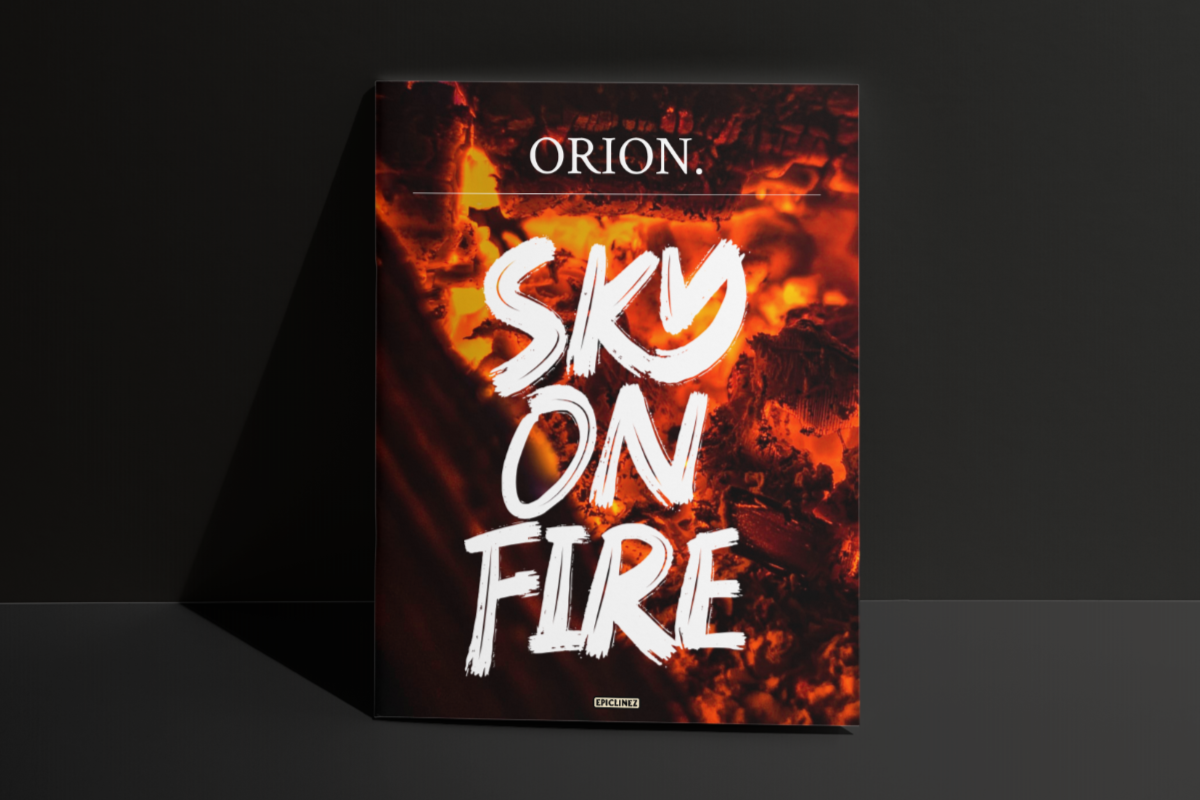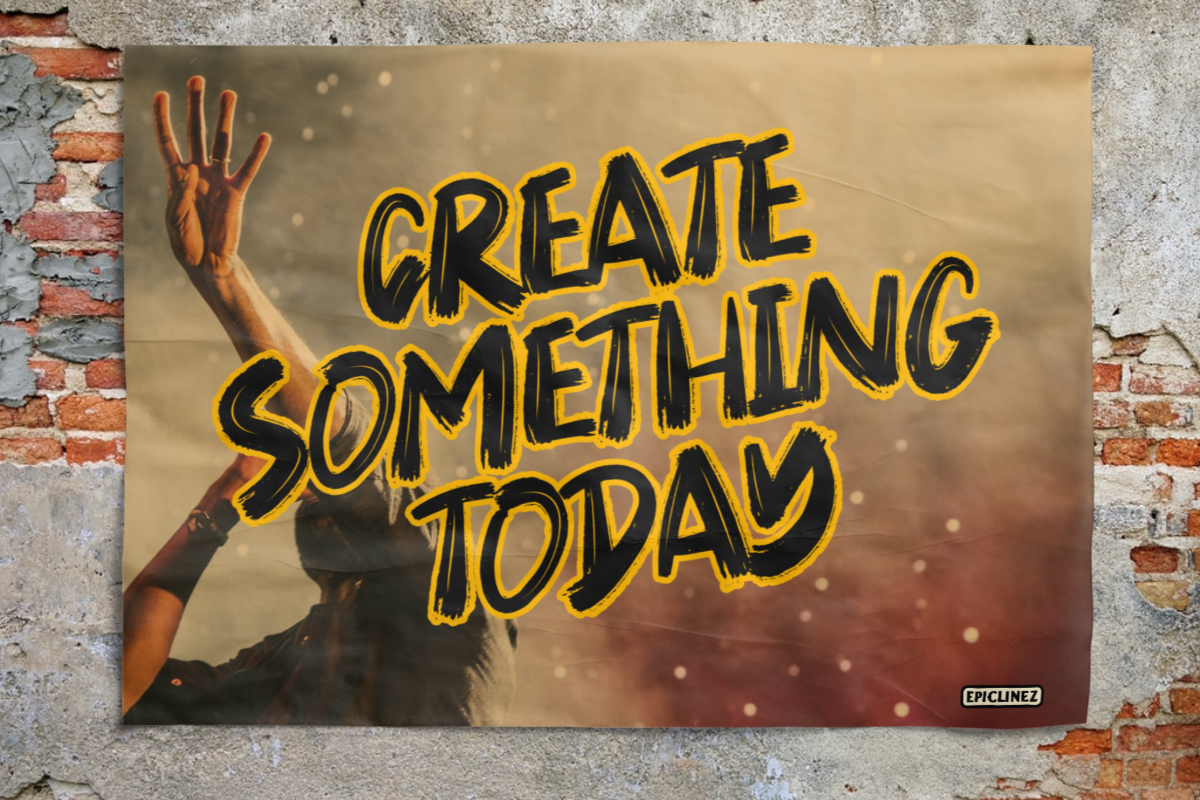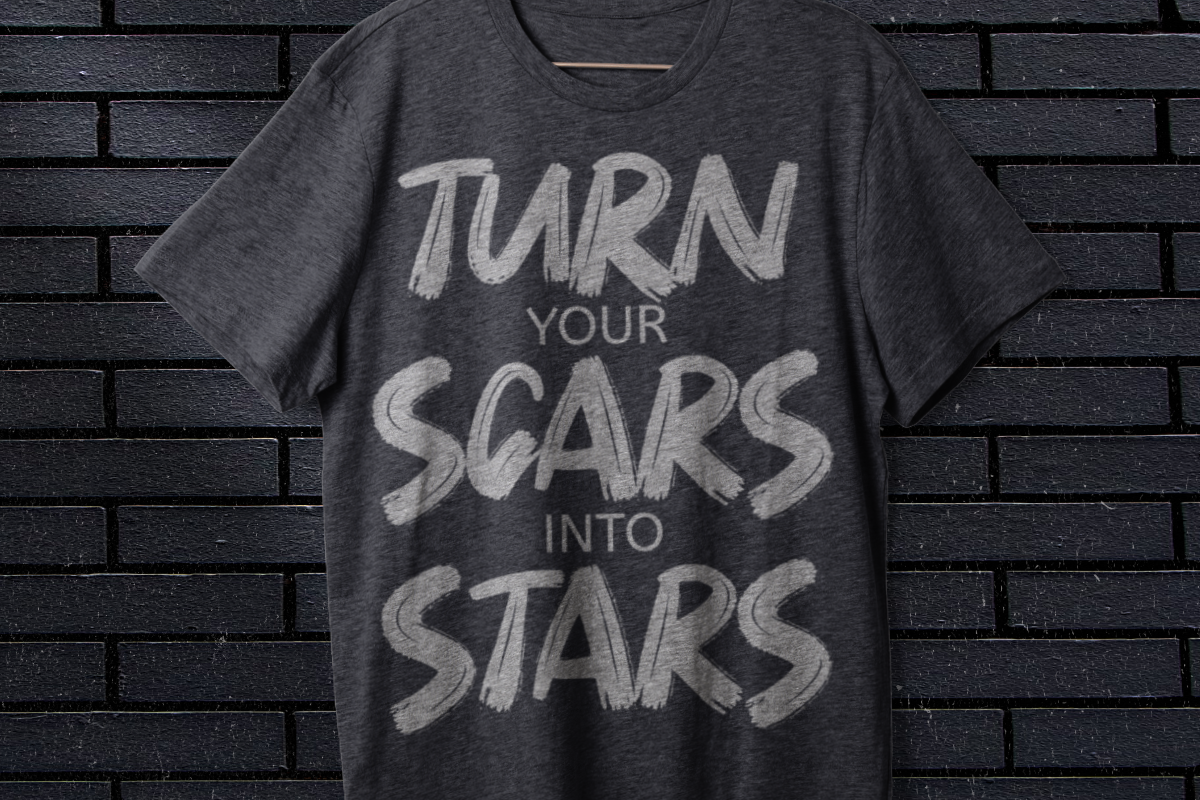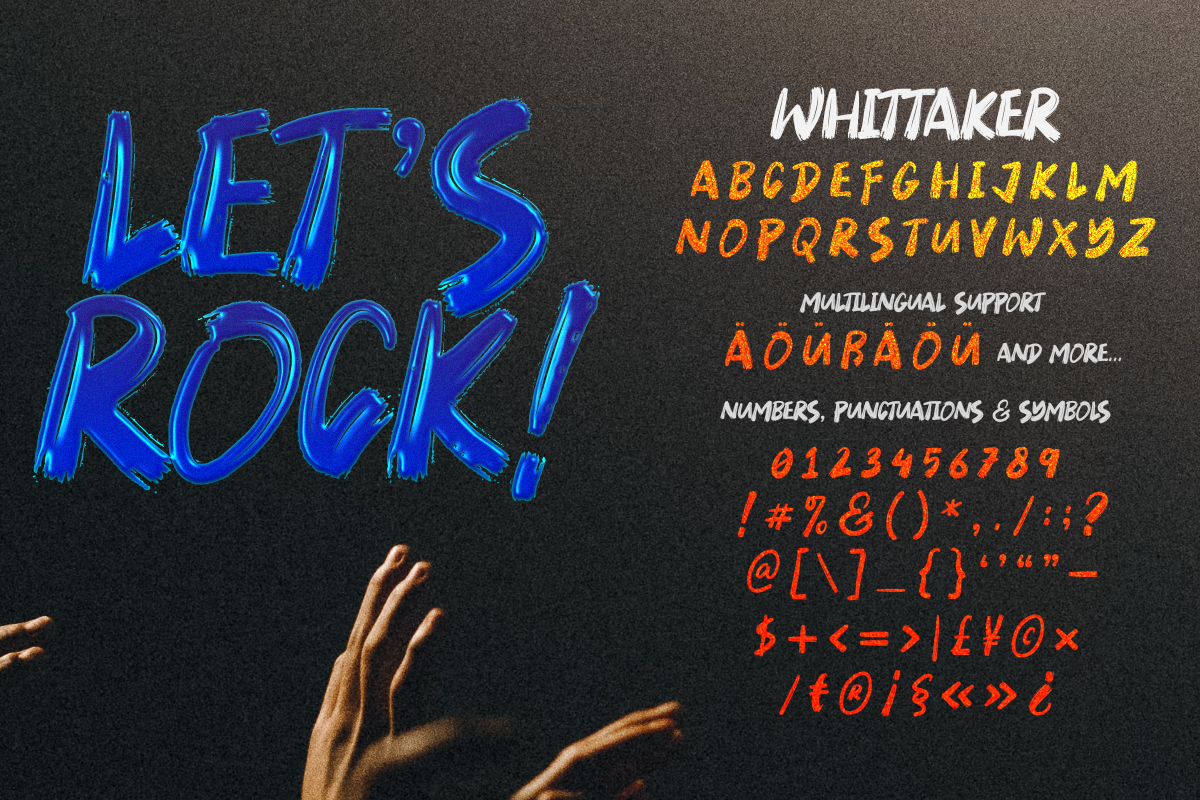
Whittaker
Whittaker is an authentic brush typeface. This all-caps font is suitable for posters, magazines, apparel, movie headlines, packaging, and more.
- Basic Latin A-Z
- Numbers, symbols, and punctuations.
- Multilingual Support.
- Accented Characters : ÀÁÂÃÄÅÆÇÈÉÊËÌÍÎÏÑÒÓÔÕÖØŒŠÙÚÛÜŸÝŽàáâãäåæçèéêëìíîïñòóôõöøœšùúûüýÿžß